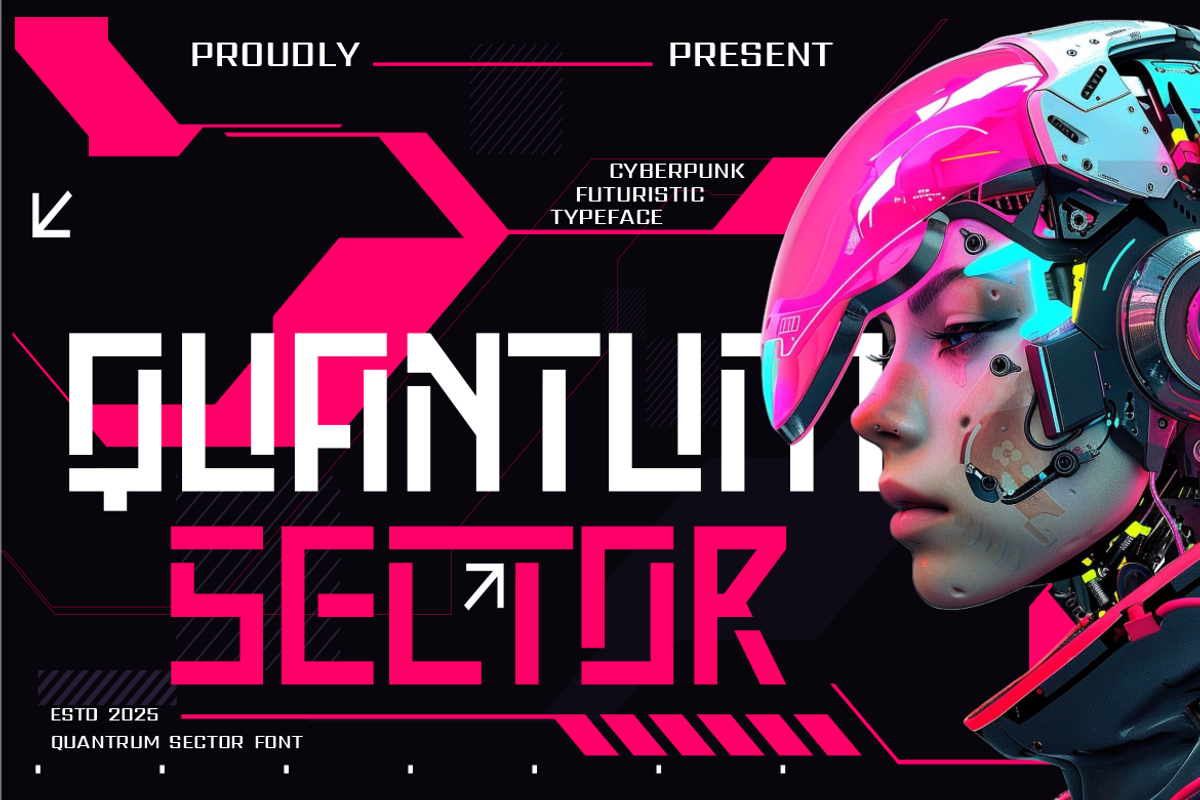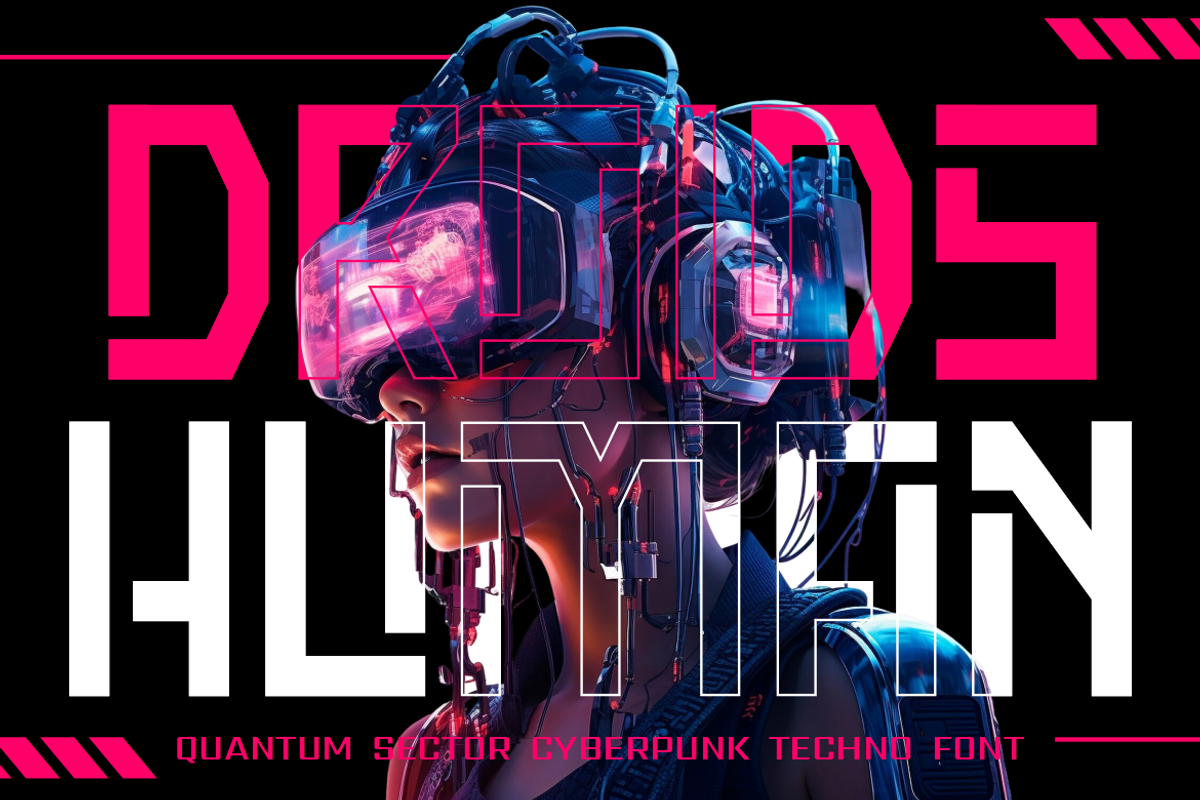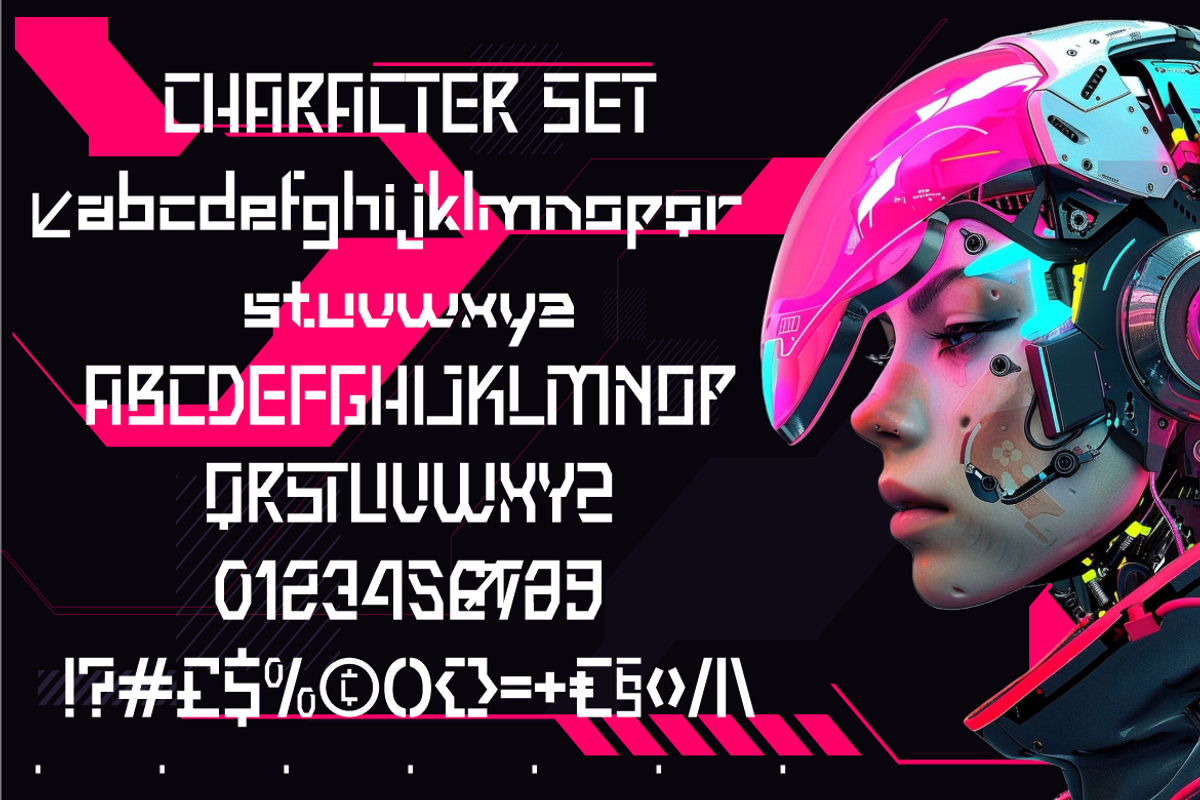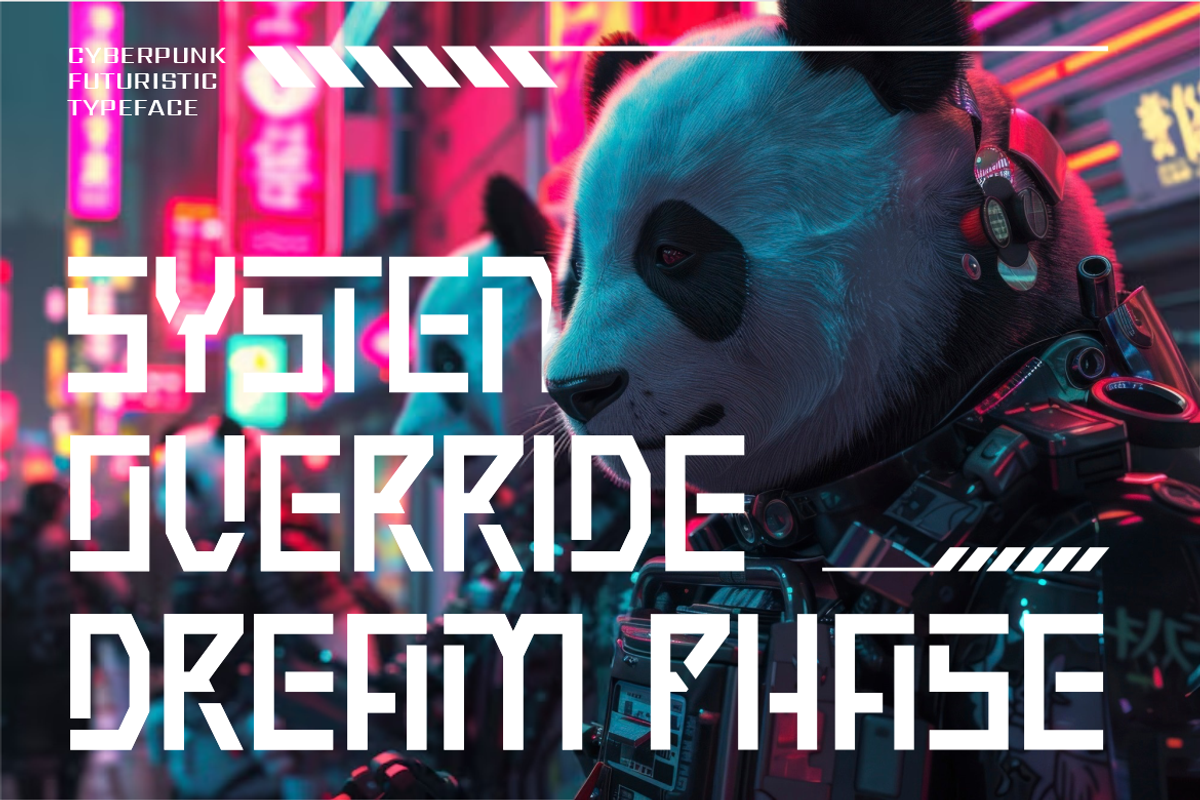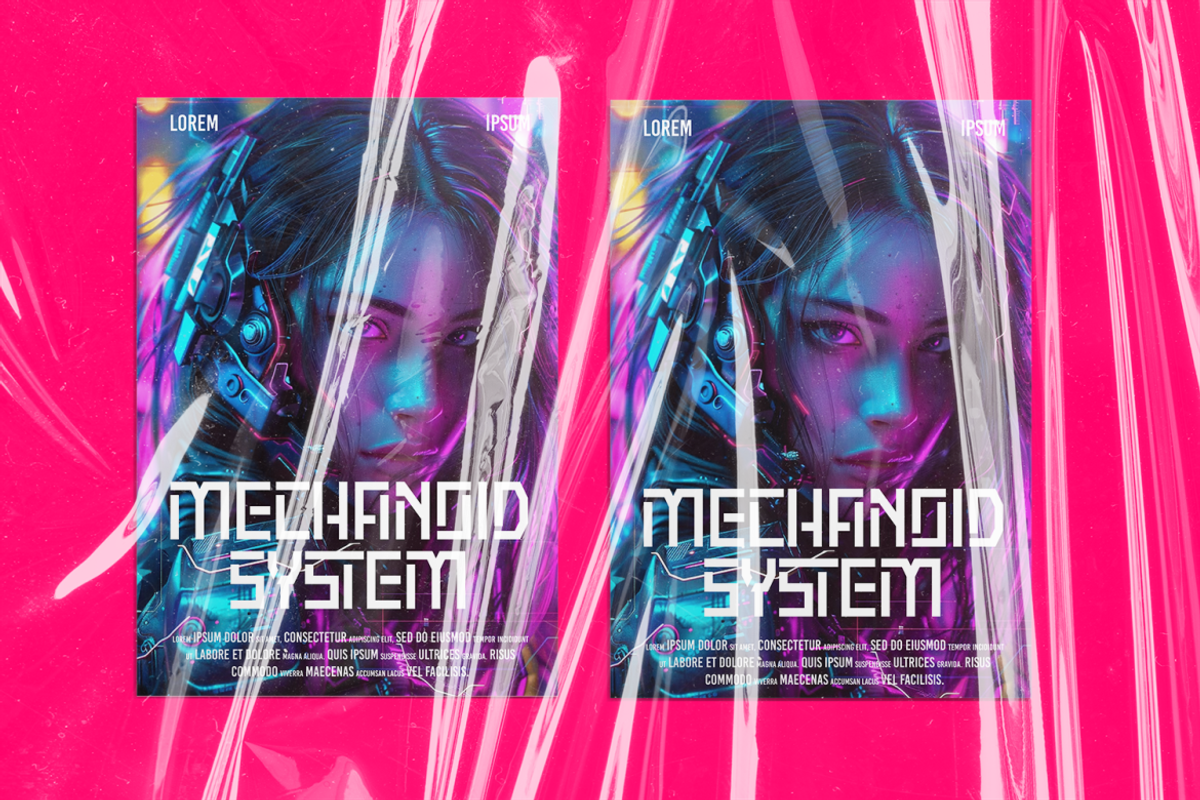
Quantum Sector Cyberpunk Techno Font
Quantum Sector is a cyberpunk techno font crafted for digital pioneers, esports champions, and futuristic branding. Its letterforms feature bold, angular strokes, pixel-inspired edges, and modular shapes that evoke the feeling of high-tech circuitry and neon-soaked cityscapes. The font’s sharp symmetry and square-based proportions create a bold visual presence—perfect for high-stakes headlines and next-gen interfaces. With both uppercase and lowercase characters, numbers, and full punctuation, Quantum Sector delivers complete usability across multiple design scenarios.
This typeface shines in digital environments and cyber-themed applications. Ideal for logos, sci-fi posters, VR packaging, gaming UI, and cutting-edge tech branding. It adapts effortlessly to use in film titles, futuristic apparel, esport identities, or social media graphics. Quantum Sector’s aesthetic aligns with cyberpunk and techno-futuristic trends, making your design instantly feel modern and elevated. Each glyph has been engineered with care to offer legibility while retaining an edgy, coded style that grabs attention.